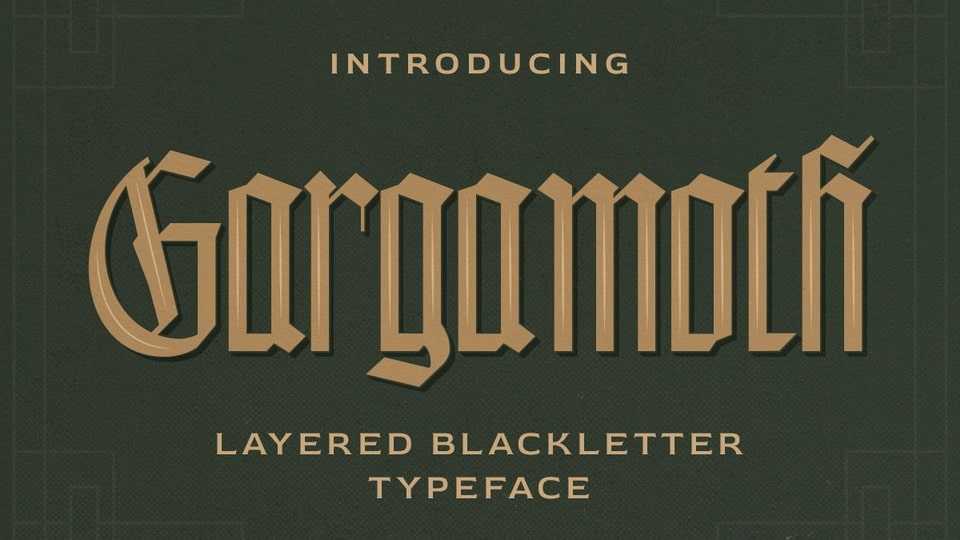
Download Gargamoth font, a modern blackletter typeface. Gargamoth is made to be applied especially in logo, and the other various formal forms such as clothing, fashion, headline, or any type of advertising purpose.